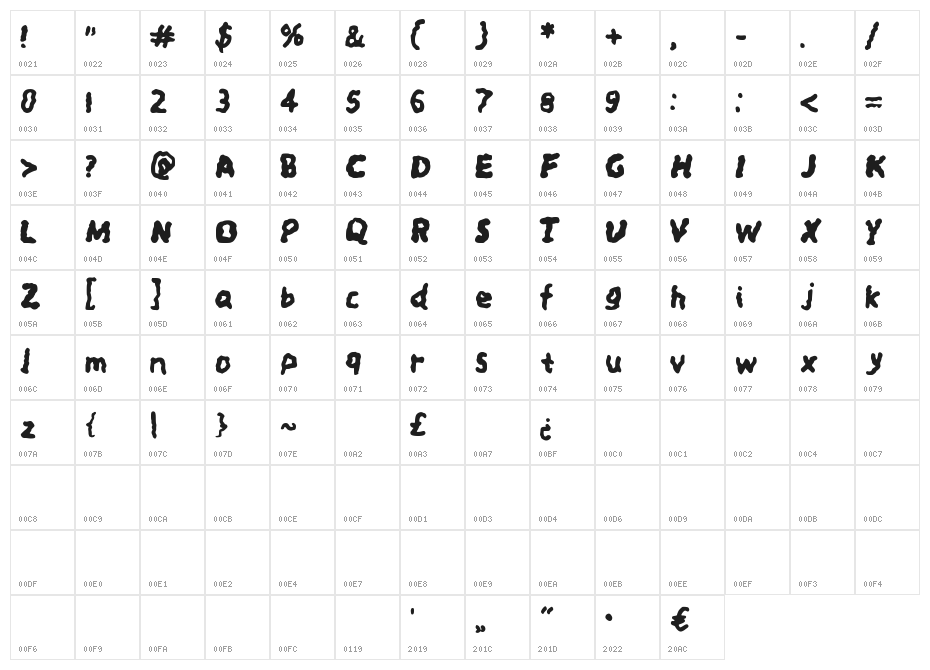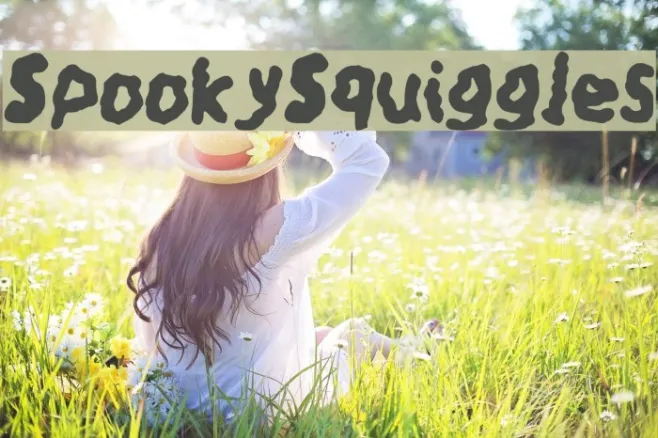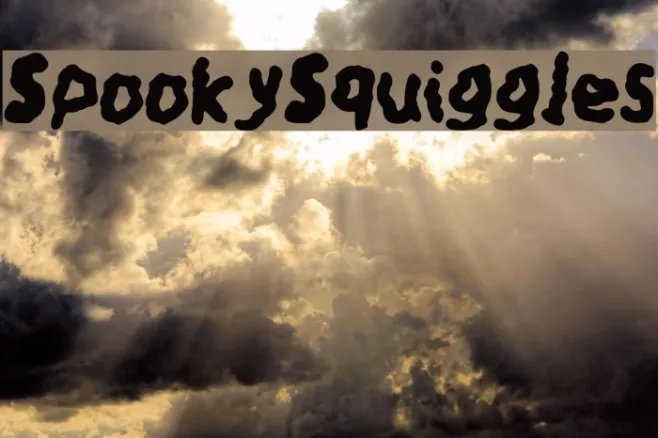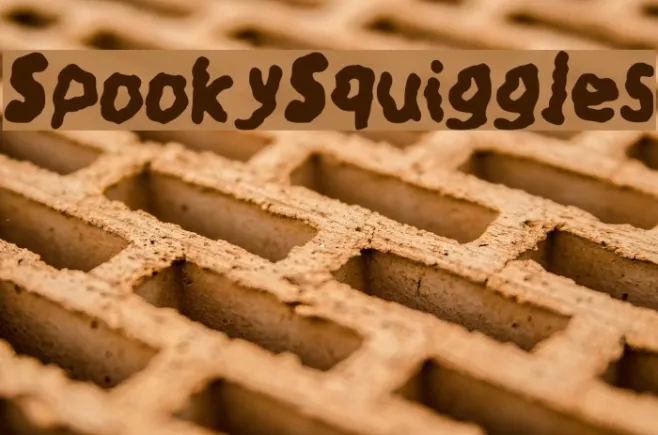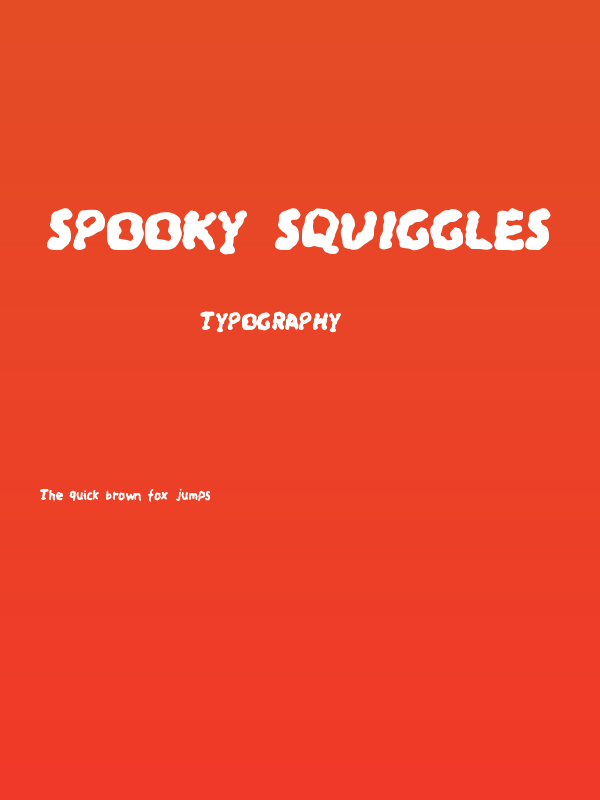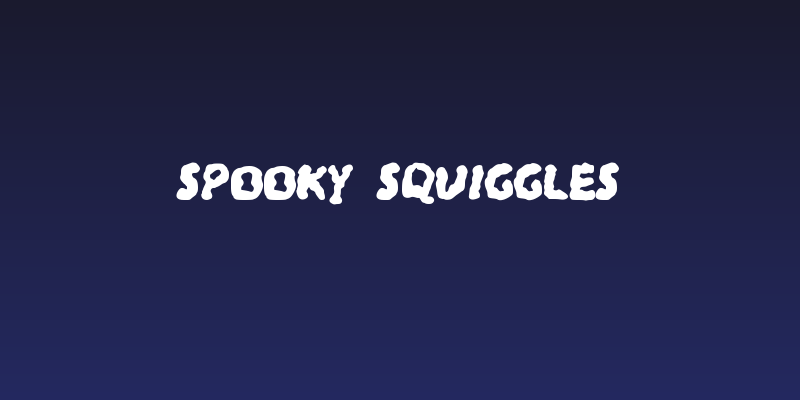
Spooky Squiggles Font
Spooky Squiggles Description
This font features a playful and irregular design, with each character appearing as if it has been hand-drawn with a thick marker. The letters have a wavy, uneven baseline, contributing to a whimsical and spooky aesthetic. The bold, rounded strokes give the font a substantial presence, making it ideal for eye-catching designs. The overall appearance is reminiscent of dripping ink or paint, adding to its eerie charm. Despite its irregularities, the font maintains good legibility, with distinct shapes for each letter and number. The special characters are equally bold and maintain the same playful style, ensuring consistency throughout the font.
| Proposed Projects | Ideal for Halloween-themed projects, children's book covers, playful posters, and creative branding. |